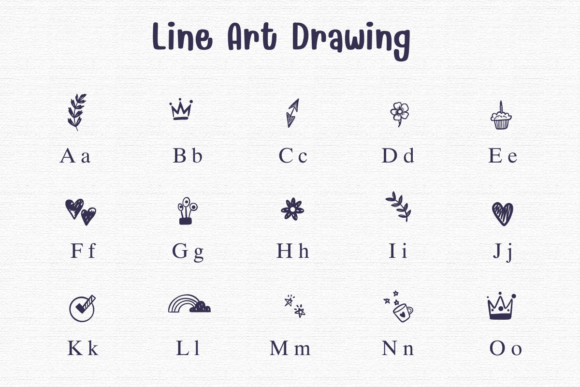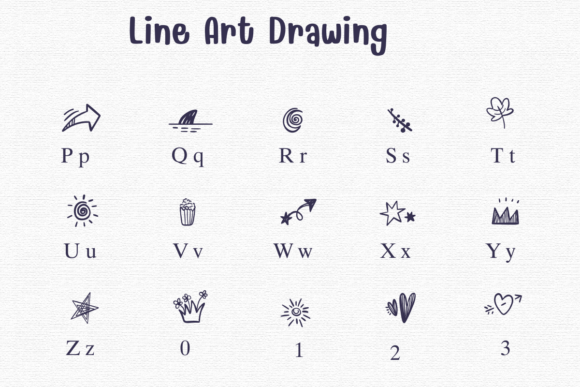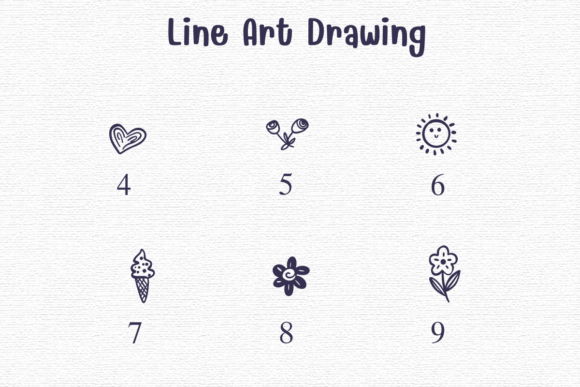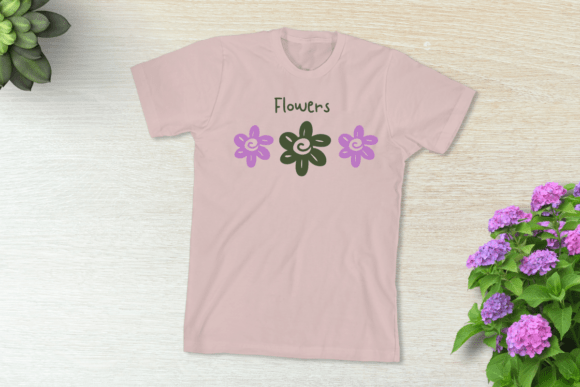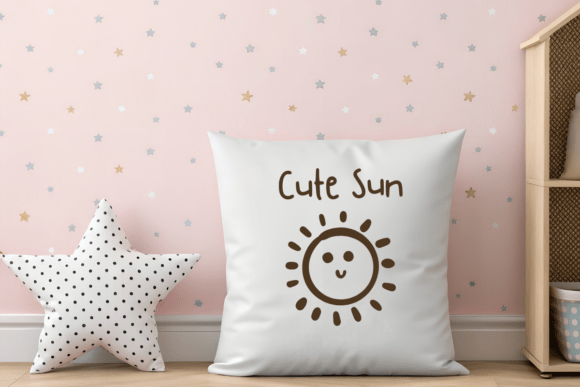
Introduction to Line Art Drawing Font
Have you ever found yourself sitting at your desk, surrounded by blank paper and pencils, searching for the perfect spark to ignite your creative project? For many designers, the struggle to find the right visual inspiration can be a daunting task. But what if you stumbled upon a design resource that could elevate your artwork to the next level? Enter the world of Line Art Drawing Font, a game-changing tool that’s about to revolutionize the way you approach your creative endeavors.
Whether you’re a seasoned artist or a design newbie, Line Art Drawing Font offers a wealth of possibilities for bringing your vision to life. With its high-quality, transparent background design, you can easily incorporate these stunning fonts into your projects, adding a touch of sophistication and elegance to your work. And the best part? Many of these fonts are available for free download, making them an invaluable resource for designers of all levels.
So, what makes Line Art Drawing Font so valuable for designers? For starters, its versatility and adaptability make it an essential tool for any creative project. From digital art to print design, these fonts can be used in a multitude of ways, from coloring outlines to creating intricate dingbats and doodle cartoons. With Line Art Drawing Font, the possibilities are endless, and we’re excited to dive deeper into this fascinating world of design.
Key Features of Line Art Drawing Font
- High-quality, vector-based design for crisp and clear rendering, even at high resolutions.
- Transparent background option for easy integration into various creative projects, including digital art, graphic design, and web design.
- Designed for use at various sizes, from small icons to large illustrations, with optimal results at resolutions up to 300 DPI.
- Unique, hand-drawn style that adds a touch of personality to any creative project, from illustrations to infographics.
- Perfect for use in digital art, graphic design, web design, and other creative fields where a high-quality, line art drawing font is required.
Honest Review: Line Art Drawing Font
I recently had the chance to play around with the Line Art Drawing Font, and I must say it’s been a great addition to my design arsenal. This font is perfect for anyone looking to add a touch of whimsy to their creative project.
- High quality design that’s perfect for illustrations and graphics.
- Transparent background option, which is super useful for creating intricate designs.
- Wide range of line styles and thicknesses to choose from.
- Limited number of characters, which can make it tricky to use for longer text-based projects.
- Not ideal for body text, as it can be a bit too ornate.
Overall, I’m really impressed with the Line Art Drawing Font. It’s a fantastic resource for designers who want to add some personality to their work. With its high quality design and transparent background option, it’s a great addition to any design project.